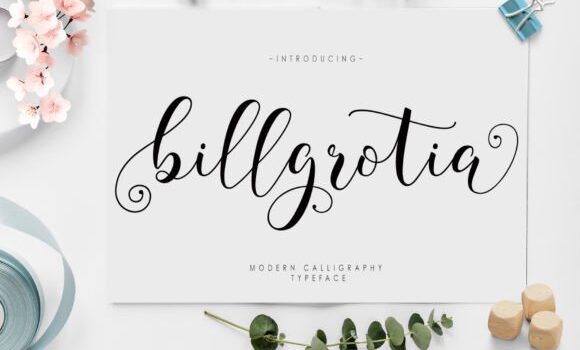
billgrotia
Billgrotia Script Font – Free Download Introduction to Billgrotia Script Font Biillgrotia is an incredibly beautiful script with gorgeous grounds, furnished with fine lines and perfect for infinite purposes. 📸 Preview Gallery 6 images 📌 Product Name Billgrotia Script Font